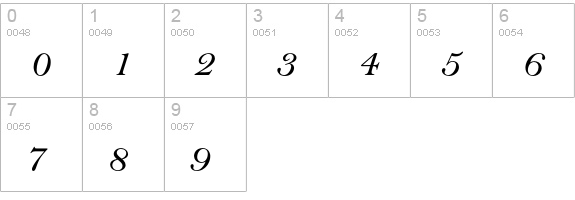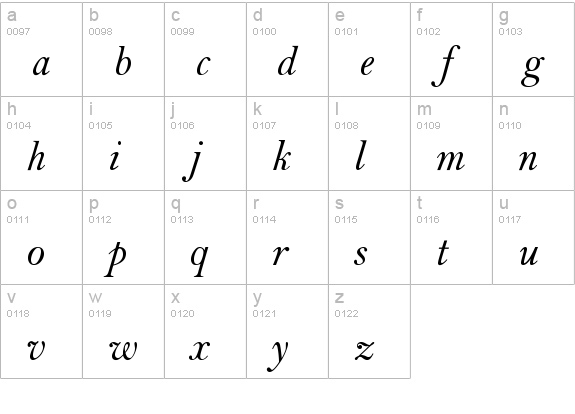
Bell TM is a classic and elegant font that exudes sophistication and versatility. With its timeless design and clean lines, this font is perfect for a wide range of projects, from branding to editorial design. The Bell TM font offers a sense of refinement and professionalism, making it a popular choice among designers and creatives alike. The best part about Bell TM font is that it is available for free download at FontsMarket.com. This means you can easily access this high-quality font and use it in your projects without any cost. Whether you're working on a logo, website, or any other design project, Bell TM font will elevate your work and give it a touch of elegance and style. Don't miss out on the opportunity to enhance your designs with this beautiful font – download Bell TM for free today at FontsMarket.com!